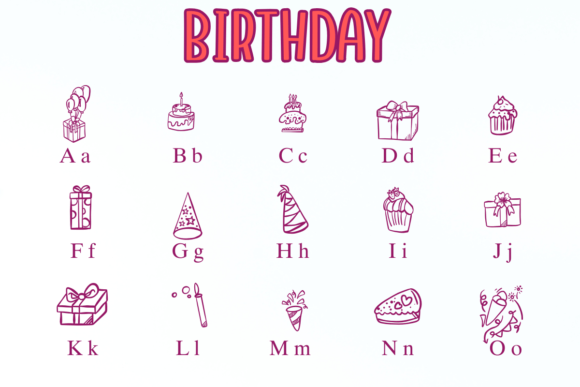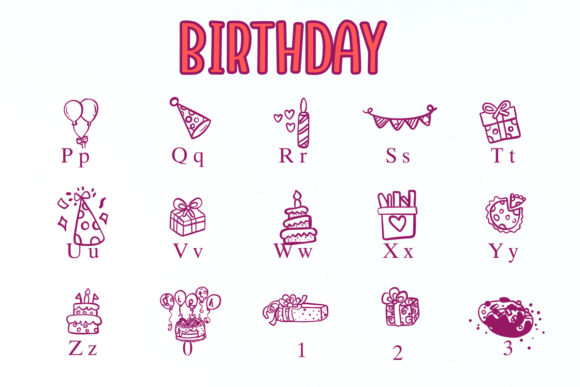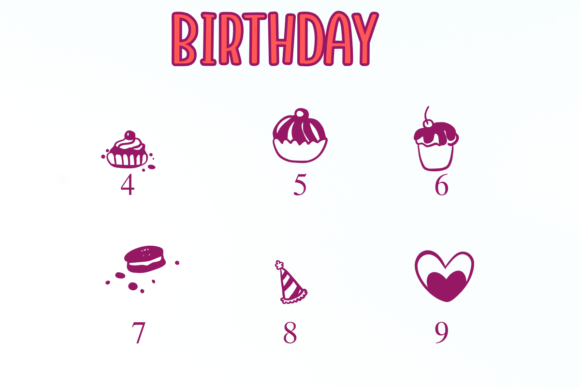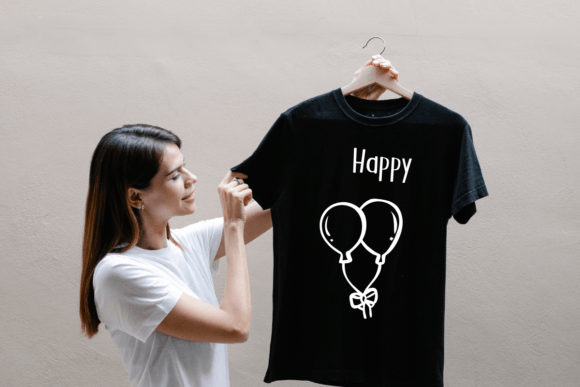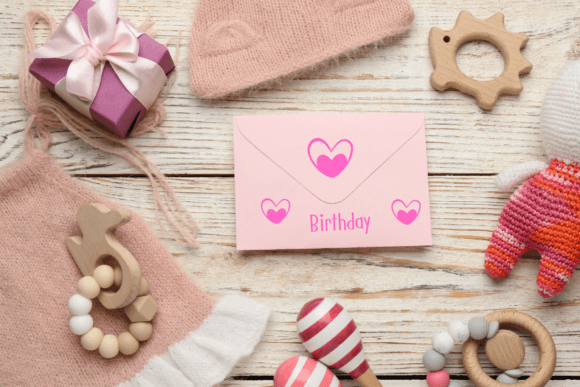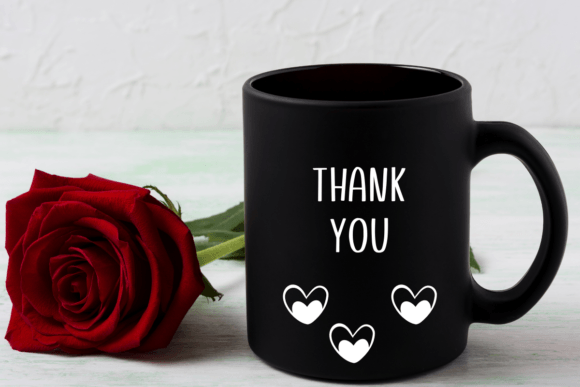
Celebrate Birthdays in Style with Our Birthday Dingbats Font!
Are you tired of using the same old fonts for your birthday invitations, cards, and decorations? Do you want to add a playful and festive touch to your celebrations? Look no further! Our Birthday Dingbats Font is here to bring a cheerful vibe to your birthday parties and make them truly unforgettable.
What is a Dingbats Font?
For those who may not be familiar, a dingbats font is a type of font that features graphical symbols, shapes, and icons instead of traditional letters and numbers. Our Birthday Dingbats Font is a carefully crafted collection of fun party elements, including balloons, cakes, presents, and more. Each character in the font is designed to add a touch of whimsy and excitement to your projects.
Features of Our Birthday Dingbats Font
Our Birthday Dingbats Font is packed with a wide range of fun and festive elements that are perfect for birthday celebrations. Some of the features of our font include:
- Fun party elements: balloons, cakes, presents, candles, and more
Ways to Use Our Birthday Dingbats Font
The possibilities are endless with our Birthday Dingbats Font! Here are some ideas to get you started:
- Birthday Invitations: Create custom invitations that set the tone for a fun and festive party. Use the font to add balloons, cakes, and presents to your design.
- Birthday Cards: Design personalized cards for friends and family members. Add a special message or a fun graphic to make it extra special.
- Party Decorations: Use the font to create custom banners, garlands, and other decorations for your party. Add a playful touch to your tables, walls, and windows.
- Social Media Graphics: Create fun and engaging social media graphics to celebrate birthdays. Use the font to add a festive touch to your posts and stories.
Our Birthday Dingbats Font is a must-have for designers and crafters who want to add a playful touch to their projects. Here are some benefits of using our font:
- Save Time: With our font, you can quickly and easily add fun party elements to your projects. No need to spend hours searching for and downloading individual graphics.
- Increase Creativity: Our font is designed to inspire creativity and add a playful touch to your projects. Use it to create unique and eye-catching designs that stand out.
Celebrate birthdays in style with our Birthday Dingbats Font! Packed with fun party elements, this font is perfect for adding a festive touch to any project. Whether you’re a designer, crafter, or party planner, our font is a must-have for creating unforgettable birthday celebrations. So why wait? Let the party begin with our playful dingbats font!